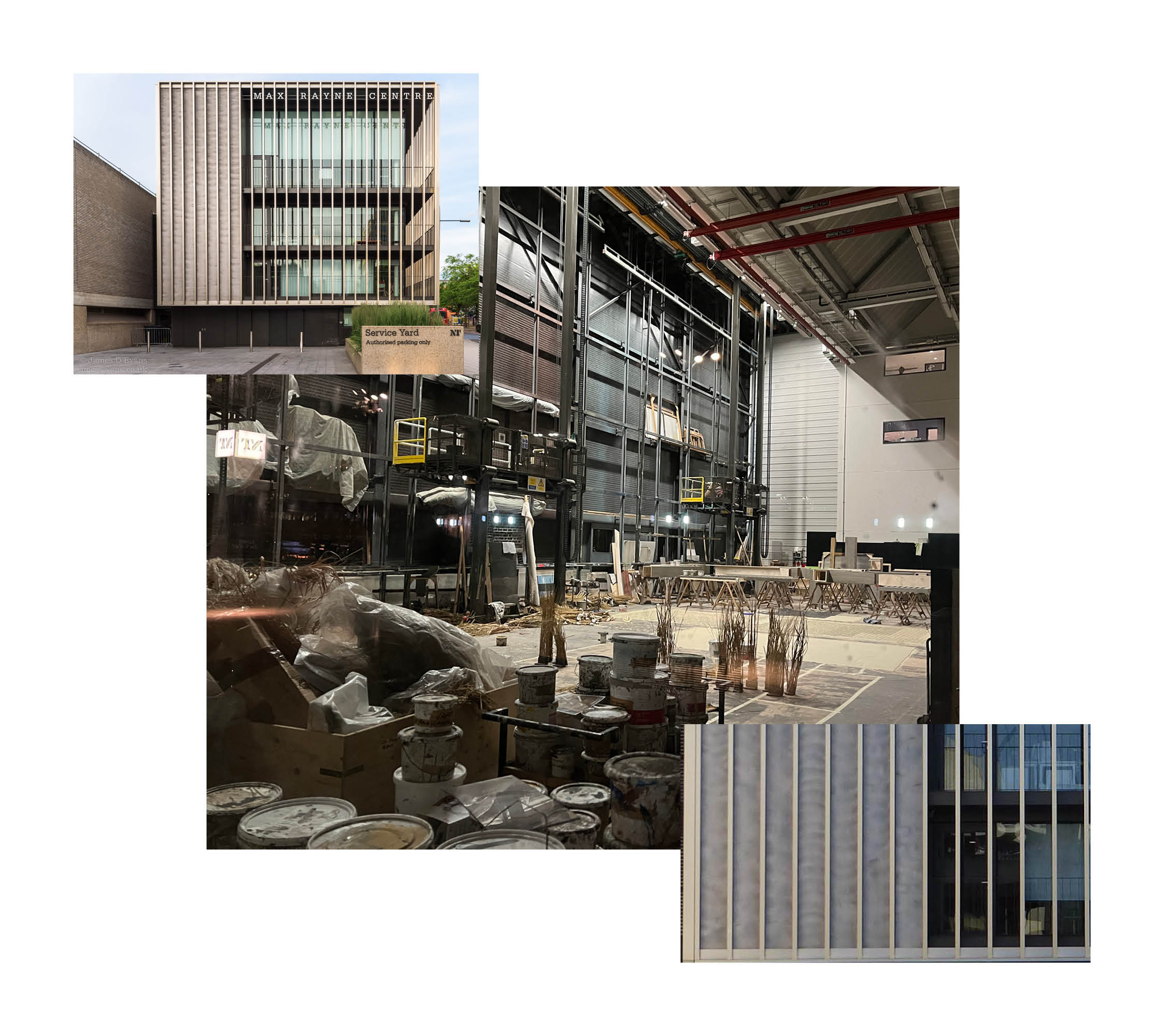
Backstage
By Emma Qiu
Backstage is based on the Brutalist-styled National Theatre. The heavy, rectangular font is inspired by the Theater’s concrete facade. The contrasting line weight is based on the contrast between the concrete blocks and metal railings. It also references the scaffolding frames that are used when building stage sets in the National Theatre’s Max Rayne Centre.